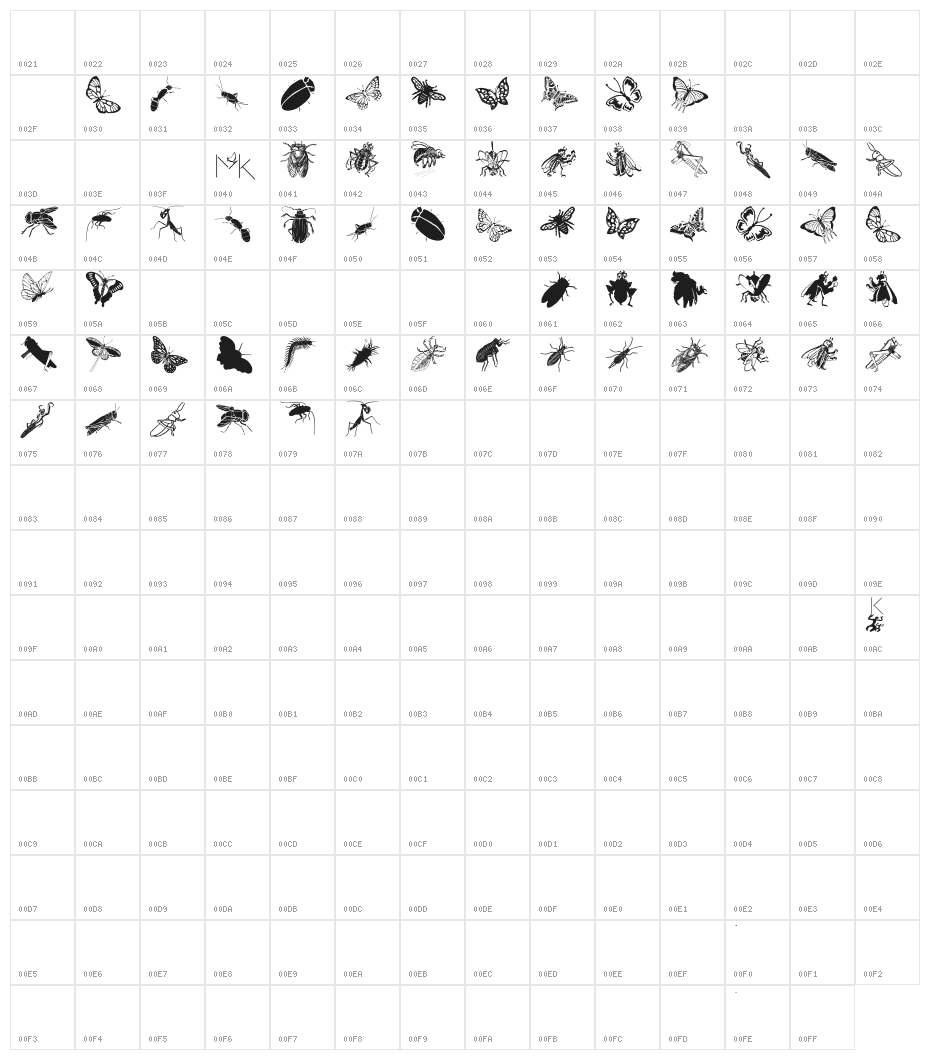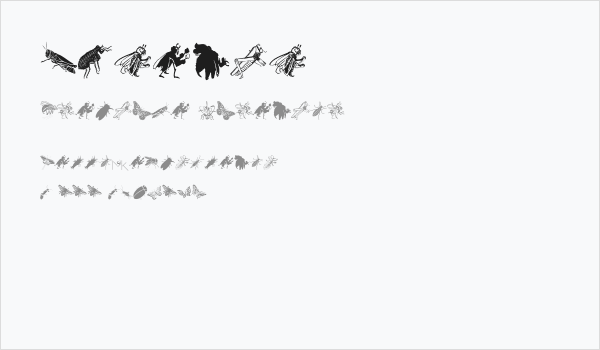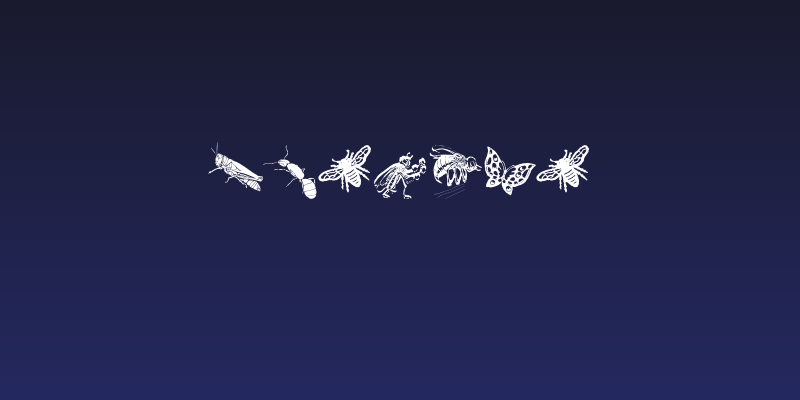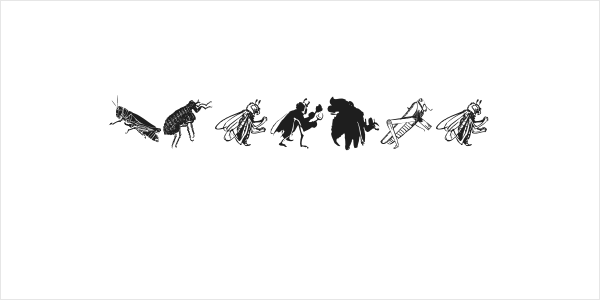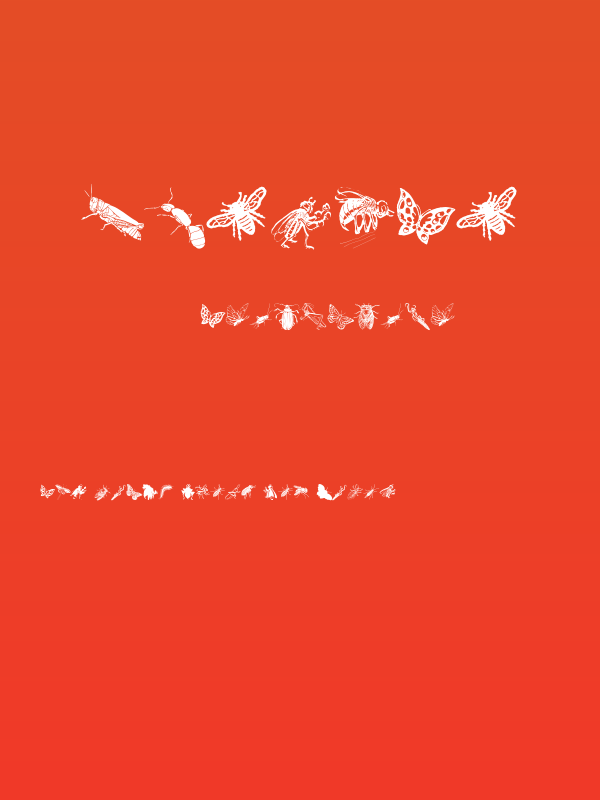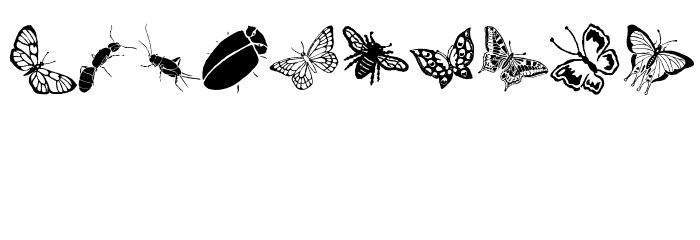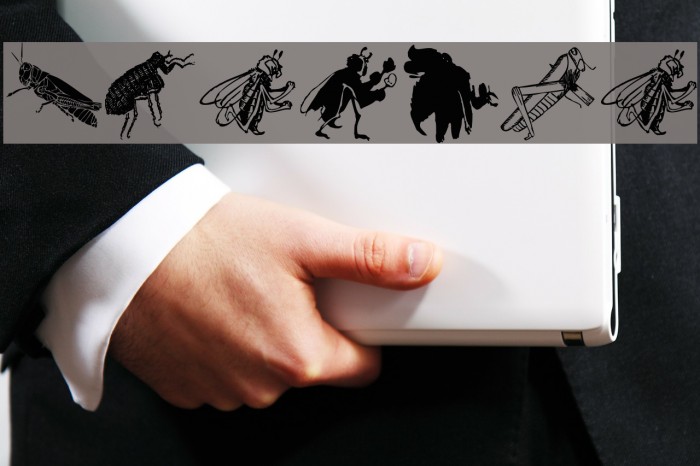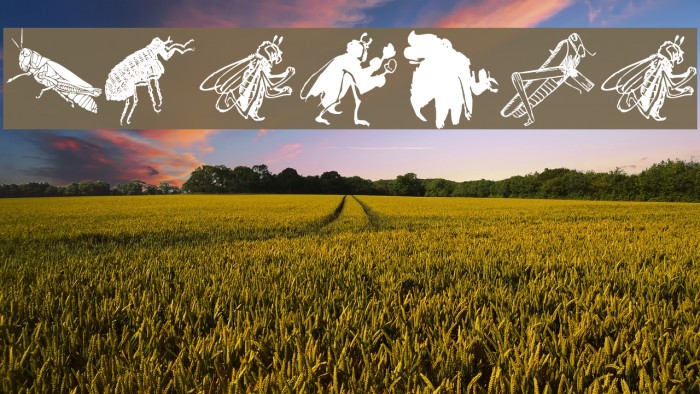
Insects Font
Insects Description
A decorative display font featuring detailed black and white illustrations of various insects, including beetles, butterflies, flies, and other arthropods, each character represented by a unique insect silhouette or drawing.
| Overall Style | Decorative, Nature-inspired, Illustrative |
| Use Case | Logos, Posters, Decorative headlines, Themed graphics |
| Proposed Projects | Educational posters, children's books, nature-themed invitations, science fair materials, creative branding for entomology or wildlife organizations. |